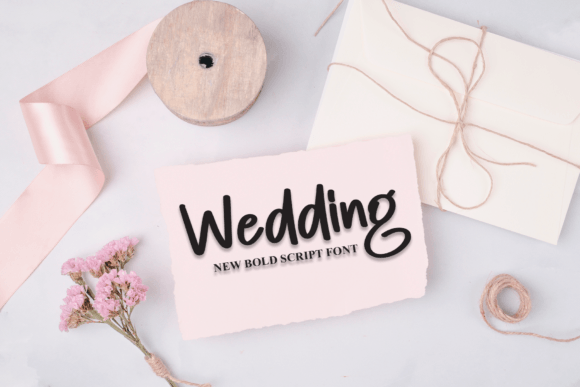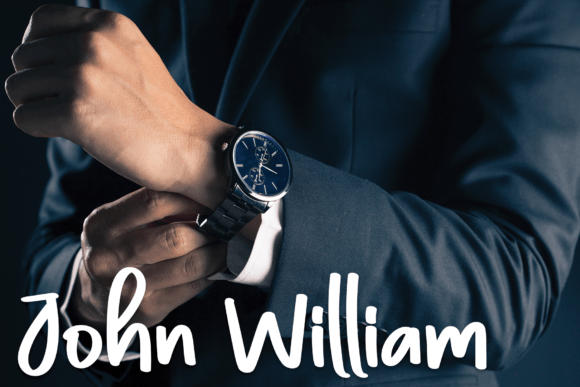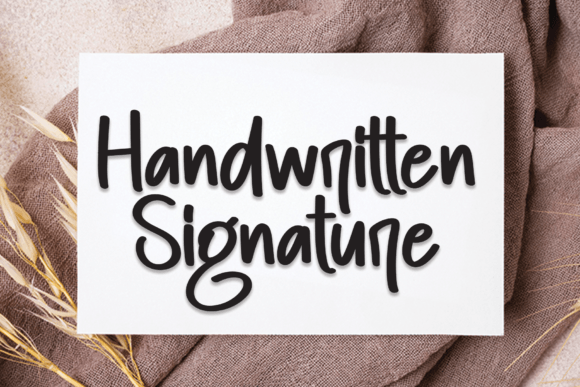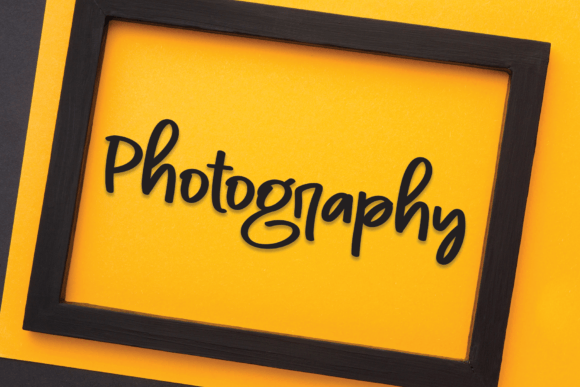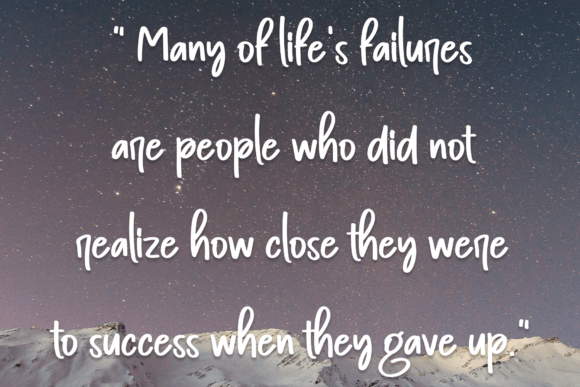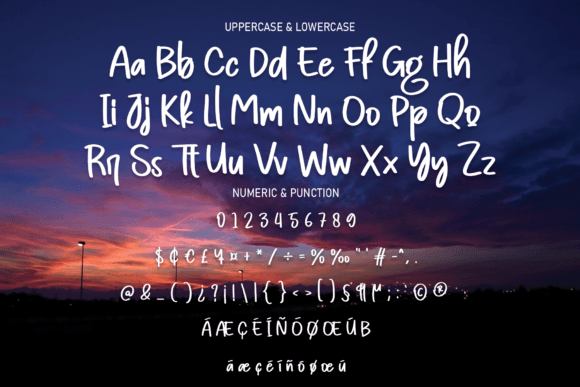
Introduction to Hello Night Font
As you sit at your desk, surrounded by scattered papers, half-empty coffee cups, and a sea of design inspiration, the creative juices start flowing. You’ve got a project in mind, and you’re on the hunt for the perfect font to bring it to life. That’s where Hello Night Font comes in – a game-changing design resource that’s about to become your new best friend.
With its elegant, handwritten style, Hello Night Font is the perfect addition to any creative project. Whether you’re designing a wedding invitation, a social media post logo, or product packaging, this versatile font is sure to elevate your design to the next level. And the best part? It’s available for free download, making it an accessible and valuable resource for designers of all levels.
So why is Hello Night Font so valuable for designers? For starters, its high-quality design makes it perfect for a variety of applications, from labels and invitations to photography and watermarks. And with its transparent background, you can easily layer it over images or other design elements to create a truly unique look.
Key Features of Hello Night Font
- Unique and stylish design, ideal for use in headings, titles, and other text elements in your project.
- Can be used in various creative contexts, from graphic design and digital art to web design and publishing.
Honest Review: Hello Night Font
One of the things that works well with this font is its versatility. It’s perfect for creative projects that require a touch of elegance and sophistication. The font’s clean lines and minimalist design make it easy to read, even on a transparent background.
- ✨ Easy to read, even on a transparent background
However, there are a few limitations to consider. The font is only available in a limited number of weights, which may not be suitable for projects that require a lot of font variation.
Overall, I’m impressed with the Hello Night Font. It’s a solid design resource that’s perfect for creative projects. While it may not be the most versatile font out there, it’s definitely worth considering for your next design project.
Hello Night Font is a high-quality design resource perfect for your creative project. This free download features a unique, eye-catching style that can elevate any design.
For the most impact, use Hello Night Font on a transparent background to make it stand out. Common use cases include branding, social media graphics, and marketing materials.